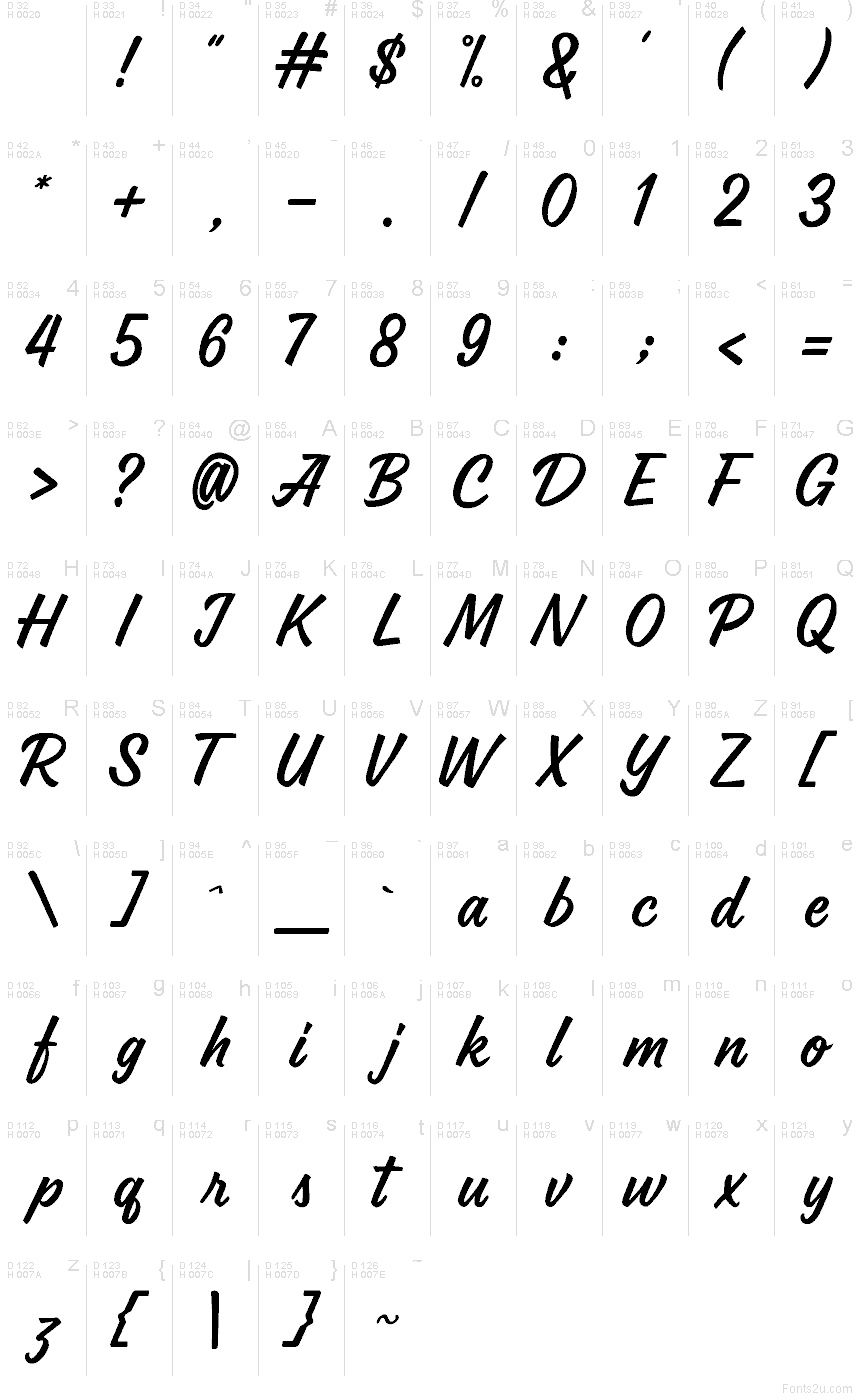
Une Chanson Romantique
Une Chanson Romantique font by BlackFridayFont FMF pours across the line like ink on a love letter, with smooth, looping strokes and soft, rounded curves. This is a free handwritten script font that feels airy yet confident, with a steady rhythm that keeps each word readable even in longer phrases. The connected letters and gentle slant give everything a warm, whispered quality that feels personal rather than posed.
Using Une Chanson Romantique, you can bring a tender, polished mood to wedding invitations, save-the-dates, engagement announcements, boutique logos, perfume or cosmetics packaging, greeting cards, and romantic quote graphics. This free font shines when you let it breathe at medium to large sizes. For a clean, modern contrast, pair it with a simple sans serif for body text and let Une Chanson Romantique handle all the names and headlines.